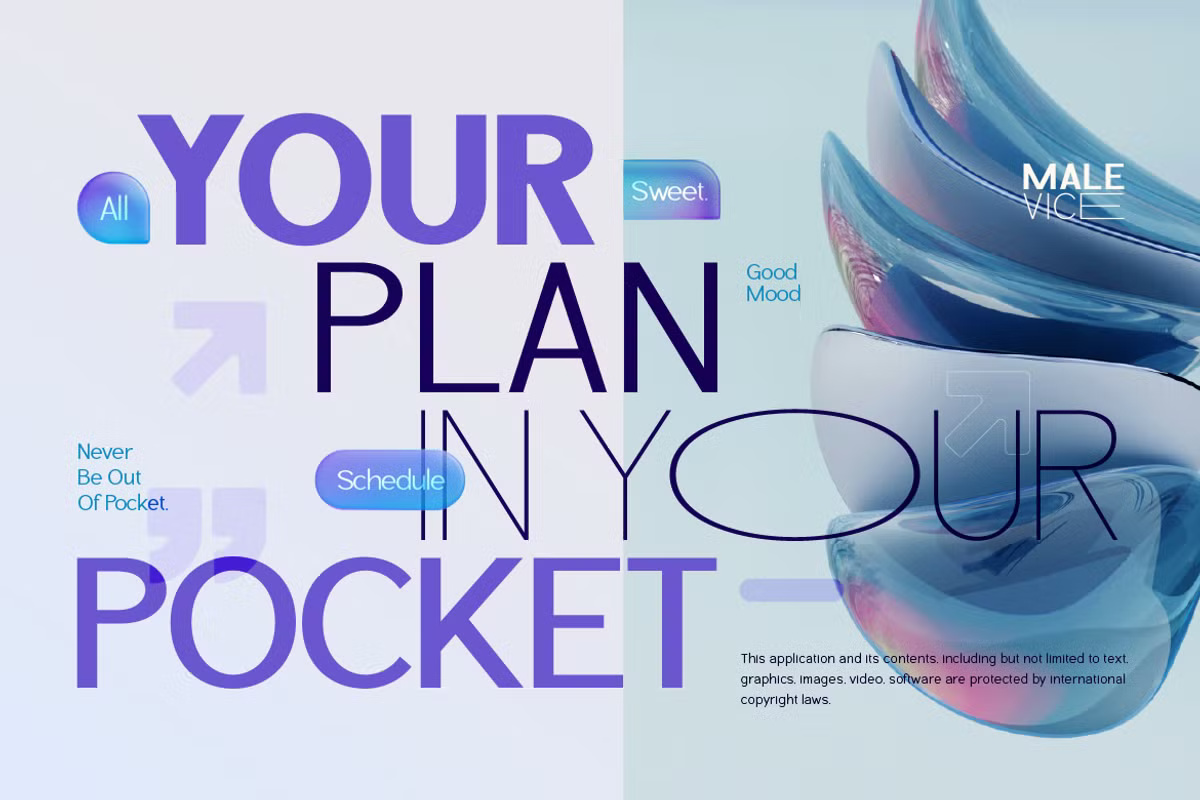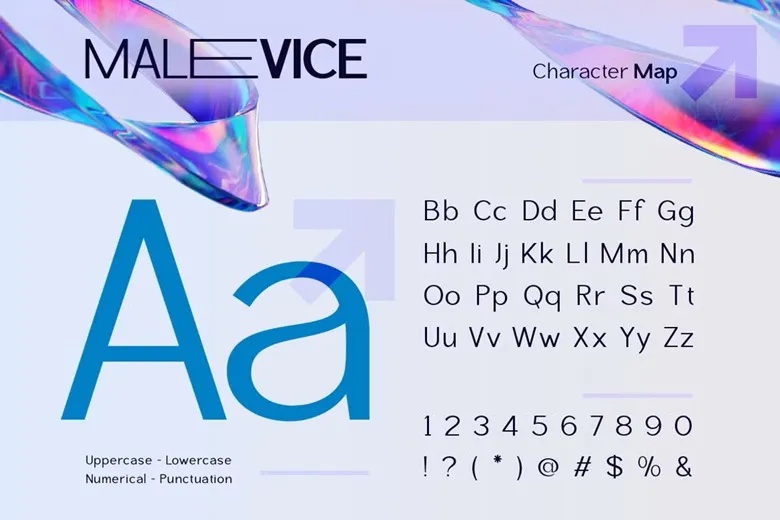
Malevice Pro Font
Malevice Pro is a sleek and versatile sans-serif font family that blends modern aesthetics with flexibility. With its clean, balanced, and professional appearance, this font is perfect for a wide range of design projects.
Featuring 9 weights, from Thin to Black, Malevice Pro adapts seamlessly to different styles—whether you’re aiming for a minimalist, refined look or a bold, impactful design. Additionally, its special alternate characters add uniqueness while maintaining excellent readability.
Malevice Pro Sans Serif Font Family